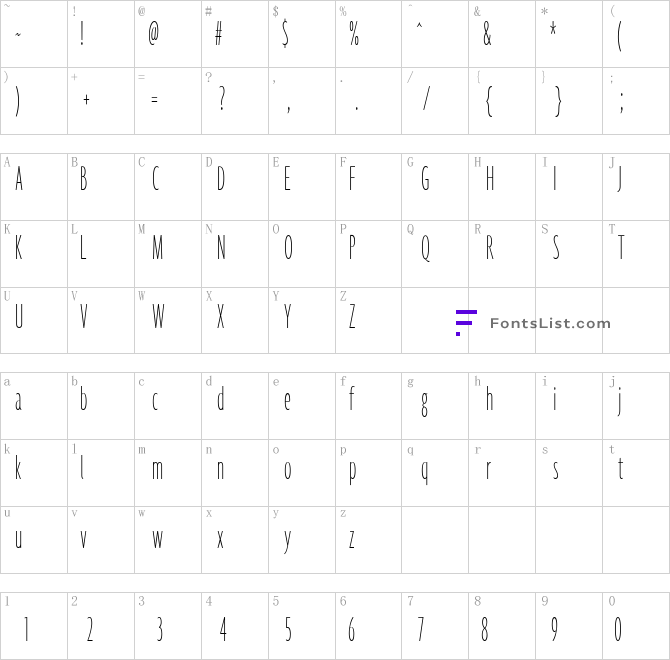
- Font Name:Agenda
- Subfamily:ThinUltraCondensed
- Full Name:Agenda-ThinUltraCondensed
- PostScript:Agenda-ThinUltraCondensed
- Copyright:Copr. 1993, Greg Thompson. Agenda is a Trademark of Greg Thompson. Produced by The Font Bureau, Inc.
Agenda-ThinUltraCondensed-copy-1-.ttf is a very beautiful artistic font, Agenda-ThinUltraCondensed-copy-1-.ttf is widely used in the design and printing of various books and pictures,Agenda-ThinUltraCondensed-copy-1-.ttf has a strong visual impact,Agenda-ThinUltraCondensed-copy-1-.ttf is a commonly used font in newspapers, magazines and books, and is used in posters, e-commerce Poster design, store design, logo design, font design and other fields.Agenda-ThinUltraCondensed-copy-1-.